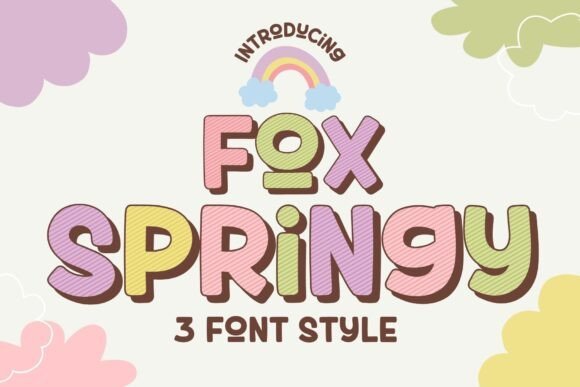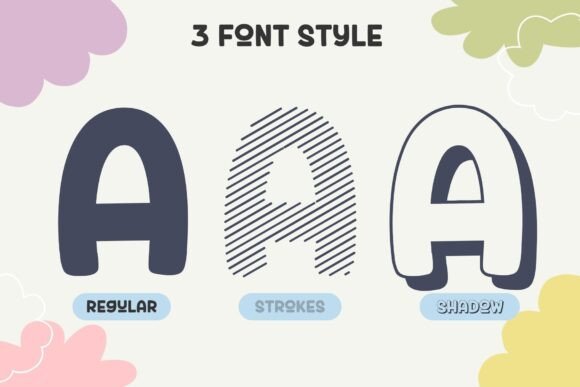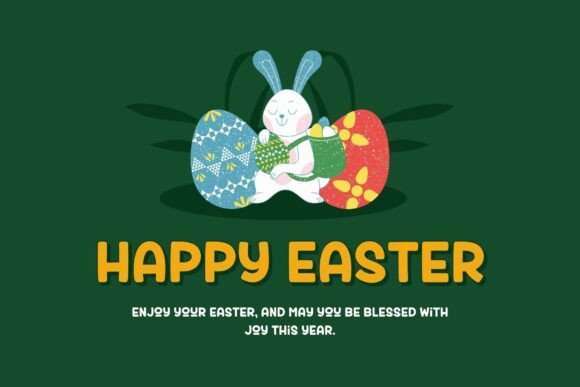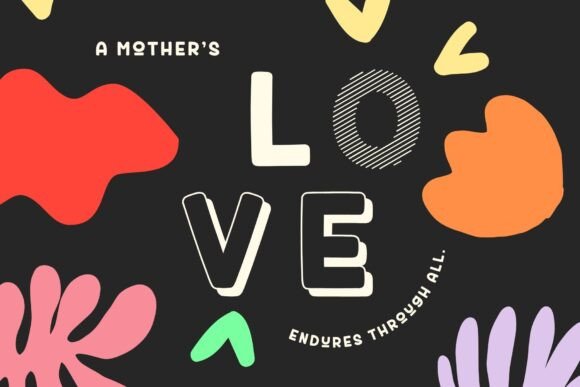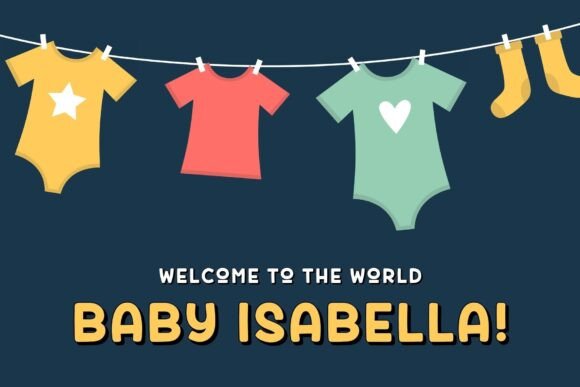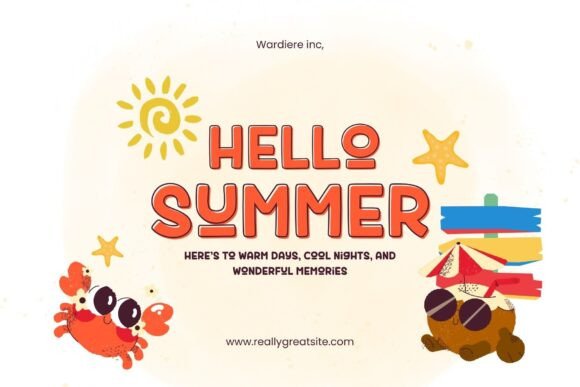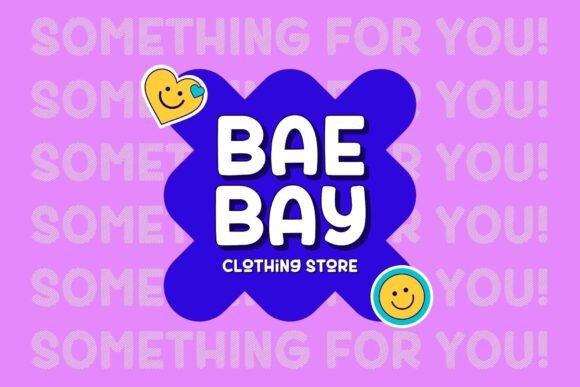
Unleash Your Creativity with Fox Springy Font
Have you ever stared at a blank page, searching for the perfect font to capture the essence of your design? The moment when a spark of creativity hits, and you know exactly what you need – a font that’s as playful as it is charming. That’s where Fox Springy Font comes in, a delightful display font designed to add a touch of whimsy to your projects.
With its three unique styles – Regular, Strokes, and Shadow – Fox Springy Font is the perfect companion for designers seeking to create eye-catching designs that stand out from the crowd. Its soft, rounded aesthetic and warm pastel color inspiration make it an ideal choice for children’s books, posters, branding, packaging, and cute merchandise. Whether you’re looking to add a dash of fun or a pinch of playfulness to your designs, Fox Springy Font is sure to make your text pop!
Fox Springy Font Key Features
- Font Family: Fox Springy Font is a unique, hand-drawn sans-serif font designed to add a touch of whimsy and playfulness to any design project.
- Character Count: The font family includes over 200 characters, including uppercase and lowercase letters, numbers, and punctuation marks.
- Unique Characteristics: The Fox Springy Font features a distinctive, spring-like feel, with each letter and symbol carefully crafted to evoke a sense of movement and energy.
Designer Review: Fox Springy Font
Overall, I’m quite impressed with the Fox Springy Font. It has a playful and energetic feel to it, which makes it perfect for designs that need a bit of a boost. ✨ The font’s springy lines and organic feel make it ideal for branding and marketing materials that want to convey a sense of fun and approachability.
Here are some of the things that I particularly like about the Fox Springy Font:
- ✨ Great for headings and titles – the font’s bold and playful feel makes it perfect for grabbing attention.
- ✨ Versatile – the Fox Springy Font can be used in a variety of contexts, from logos and branding to advertising and marketing materials.
- ✨ Easy to read – despite its playful feel, the font is still easy to read and understand, making it a great choice for longer blocks of text.
However, there are a few limitations to the Fox Springy Font that I think are worth noting:
- ⚠️ May not be suitable for formal or professional contexts – the font’s playful feel may not be suitable for more formal or professional designs.
- ⚠️ May not be as effective in smaller sizes – the font’s springy lines may become less effective in smaller sizes, making it harder to read.
Overall, I think the Fox Springy Font is a great addition to any designer’s toolkit. While it may have a few limitations, its playful and energetic feel make it a great choice for a wide range of design projects.
Some common use cases for Fox Springy Font include:
– Creating playful and eye-catching titles and headings
– Adding a fun and whimsical touch to children’s educational materials
– Designing social media graphics and advertisements that stand out from the crowd